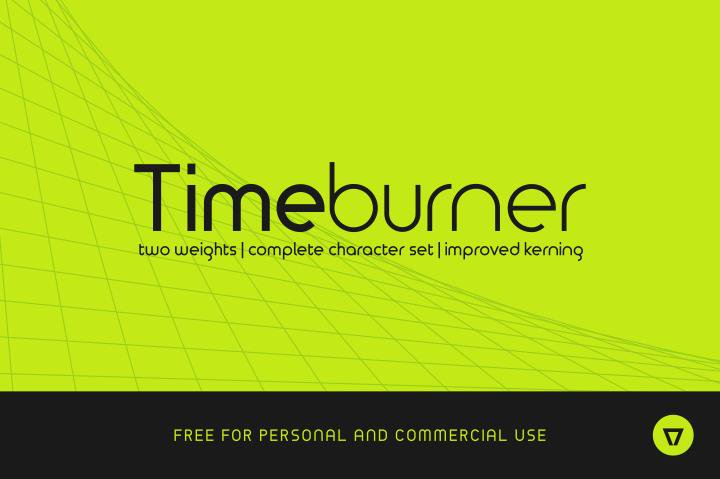
Free TimeBurner Font
Download and enjoy this free timeburner font. Cool typeface to showcase your designs in a modern way. Font Space has created this amazing and beautiful free typeface. Amaze your fellow designers and create stunning designs with this cool font.